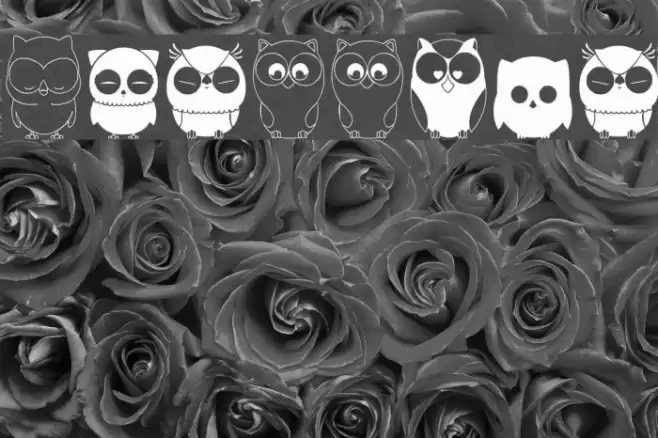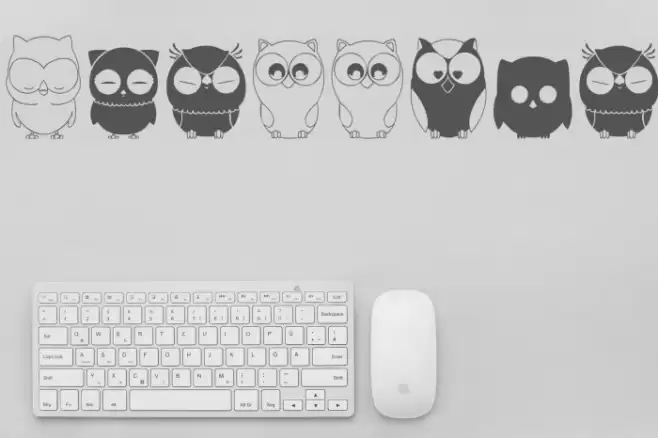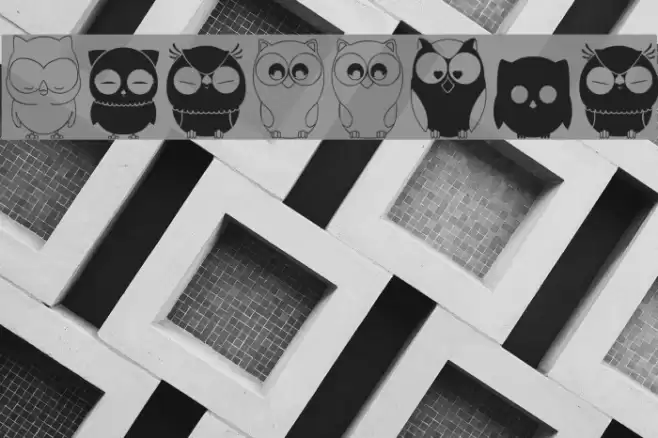
Chouette alors Font
Chouette alors Description
A playful dingbat font featuring a variety of whimsical owl illustrations and simple heart and feather motifs, rendered in both outline and solid styles with bold, rounded shapes and expressive faces.
A decorative dingbat font with cute owl and heart illustrations from Dingbats fonts.
- Proposed Projects: Children’s books, greeting cards, educational materials, scrapbooking, playful branding, decorative borders.
- Overall Style: Playful, Whimsical, Decorative
- Use Case: Illustrative elements, Logos, Craft projects, Themed invitations